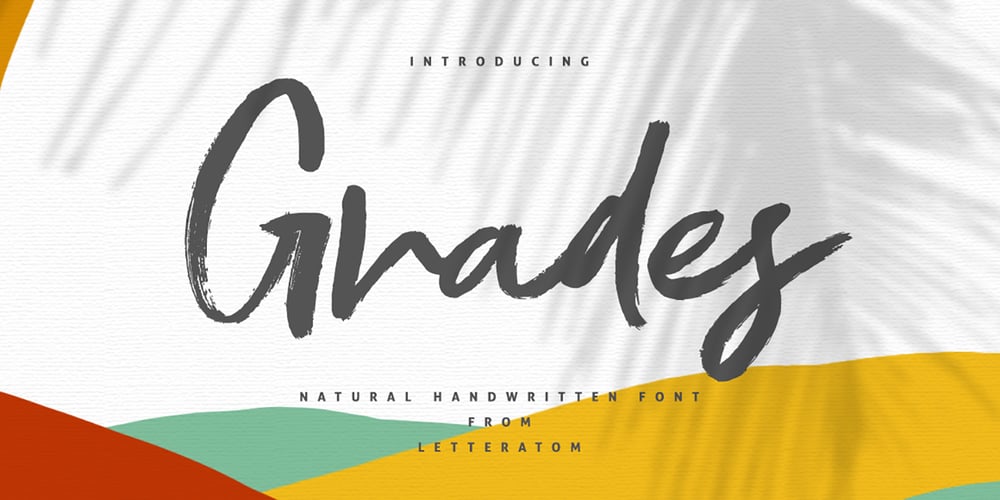
Grades
Grades font
Grades Font Family was designed by Eko Kurniawan and published by Atom. Grades contains 1 styles and family package options. Grades is a font with an amazing natural handwritten touch. Perfect for various design projects that need a touch of excitement! Is there any questions, don’t hesitate to ask me 🙂 Letteratom